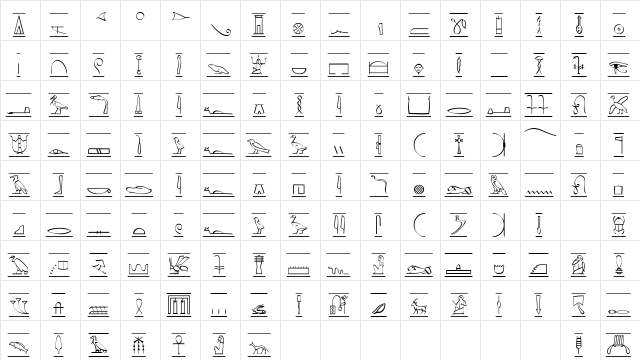
Hieroglyphic Cartouche
Design Context for Hieroglyphic Typeface
Hieroglyphic takes a measured approach to typography — its balanced proportions and neutral character make it a reliable workhorse for both digital and print work.
Pro Tip: Pair Hieroglyphic with a font of contrasting weight or personality to build a more expressive typographic hierarchy.